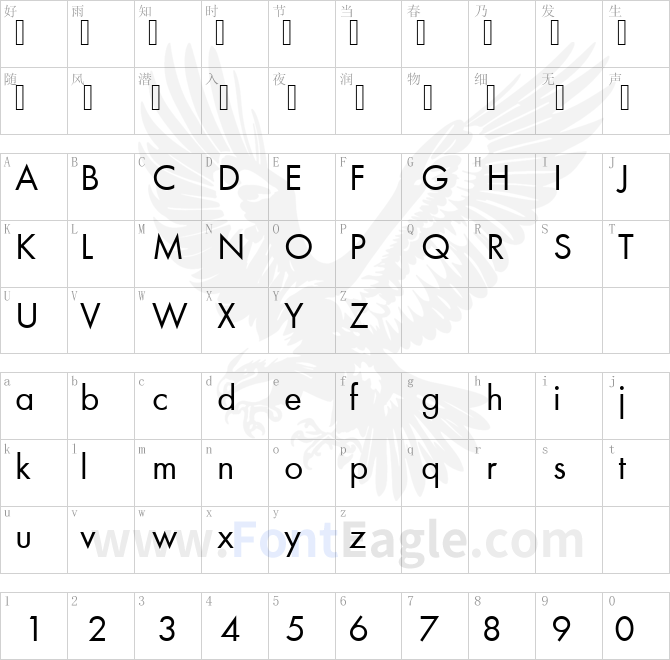
FuturaTEE Regular.ttf Font Image
FuturaTEE Regular.ttf Base Font Information
- Font name:FuturaTEE
- Font Subfamily ID:URW:FuturaTEE-Book:1996
- Font Full Name:FuturaTEE
- Postscript:FuturaTEE-Book
FuturaTEE Regular.ttf Characters Sample